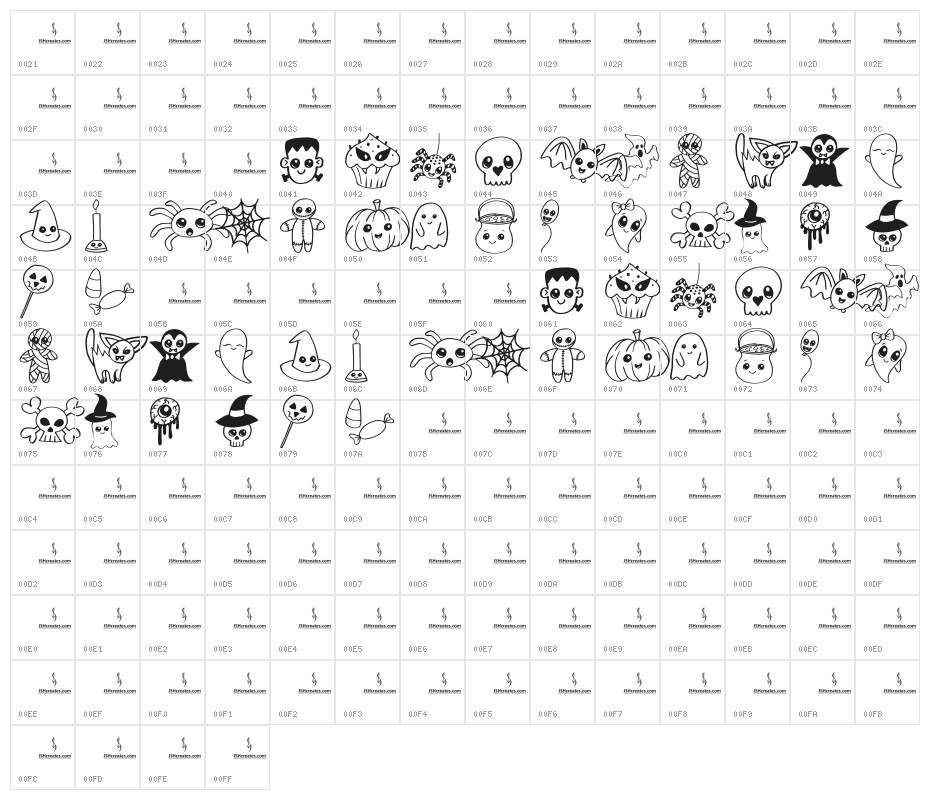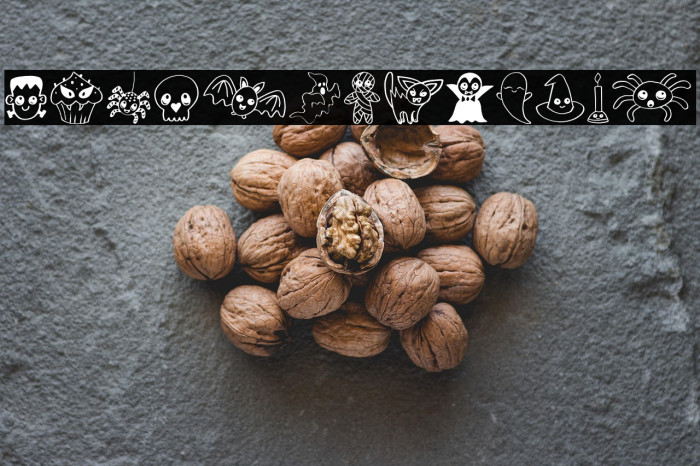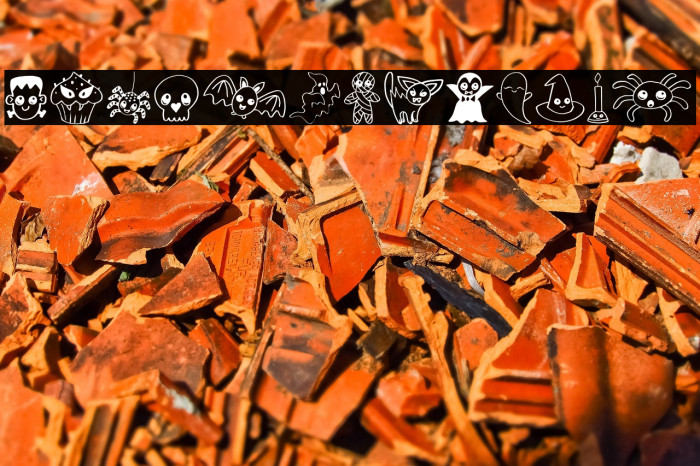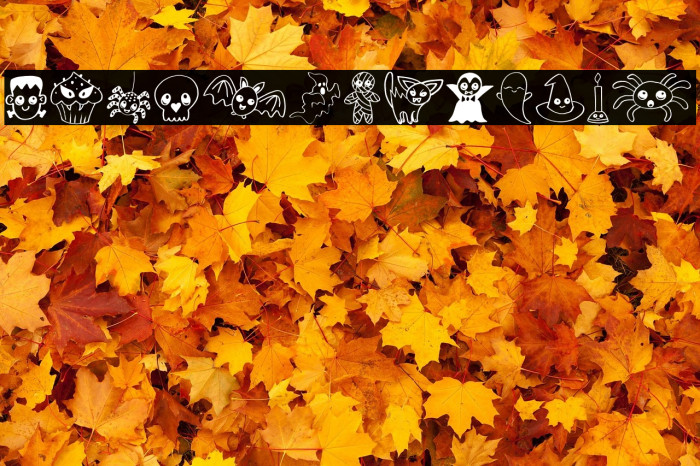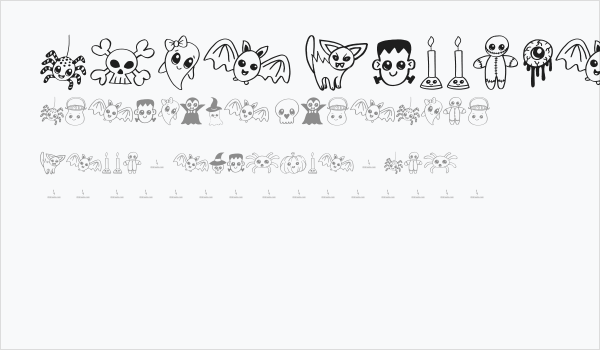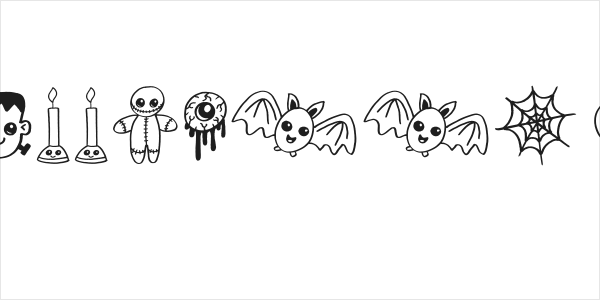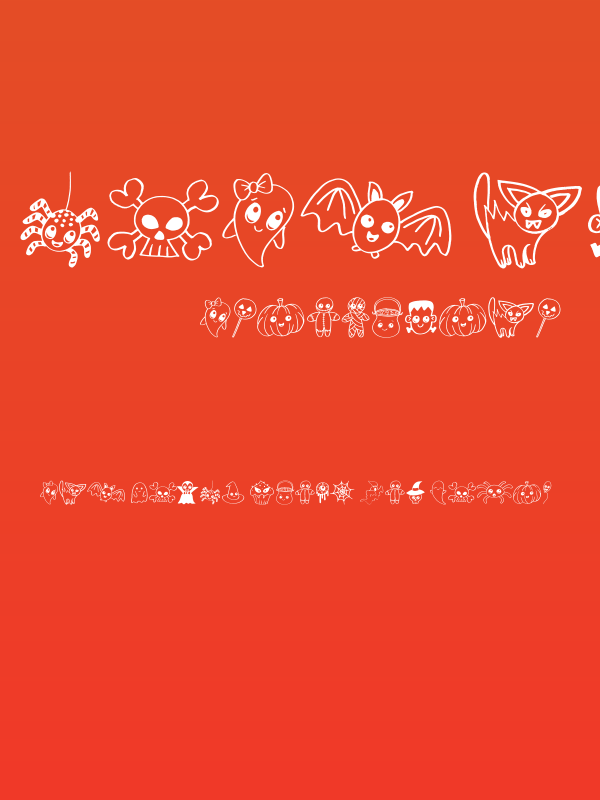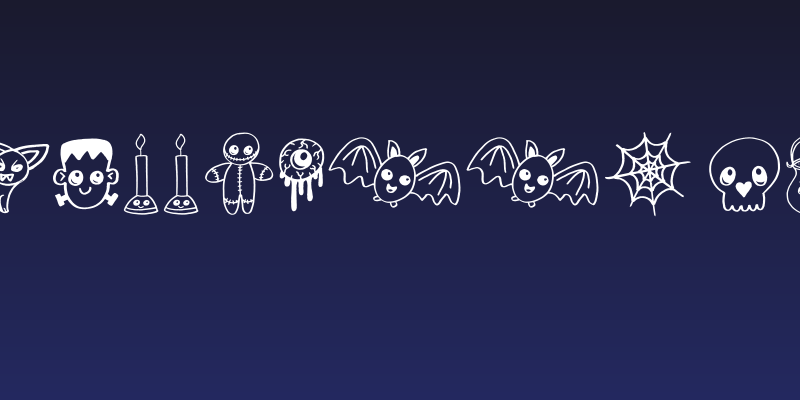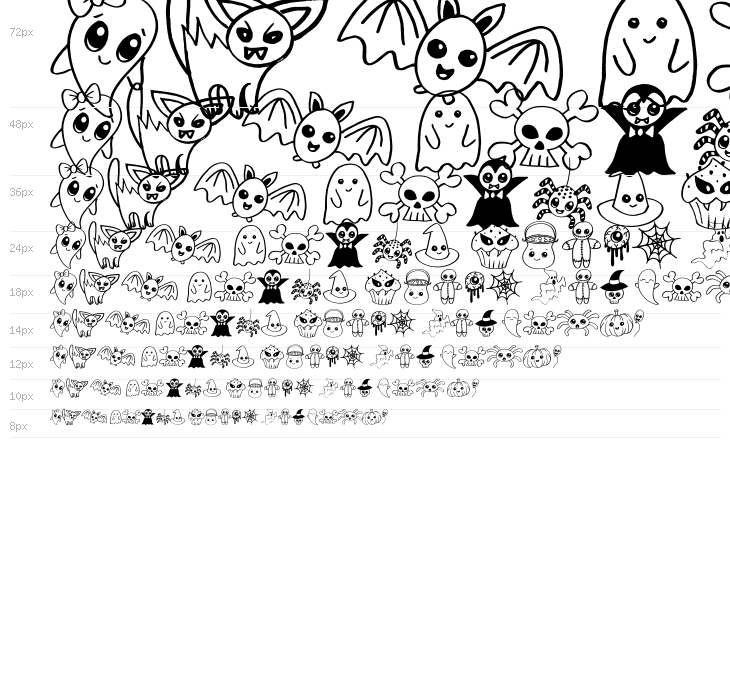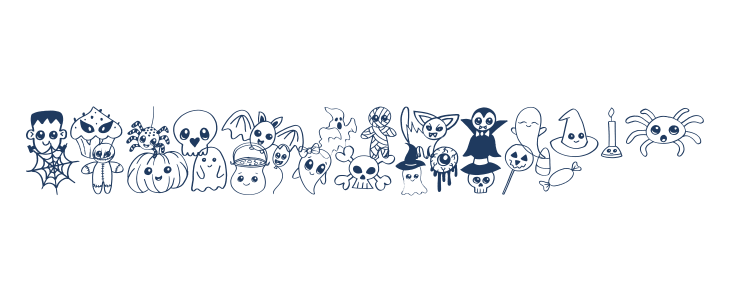
Cute Halloween Drawings Font
Cute Halloween Drawings Description
A playful and whimsical decorative font featuring hand-drawn Halloween-themed doodles such as pumpkins, ghosts, bats, skulls, spiders, and candy, each character represented by a unique cute illustration.
| Overall Style | Decorative, Playful, Whimsical |
| Use Case | Headlines, Posters, Themed Graphics, Crafts |
| Proposed Projects | Halloween party invitations, children's event flyers, themed posters, greeting cards, scrapbooking, and festive social media graphics. |